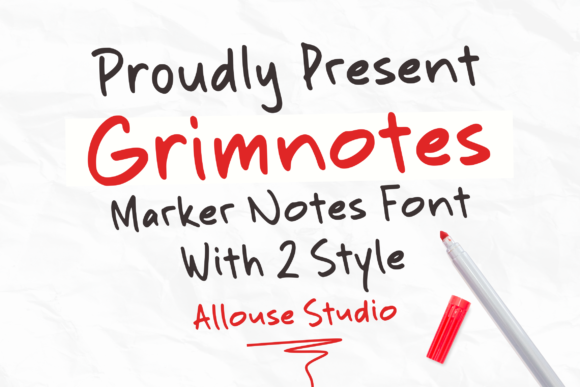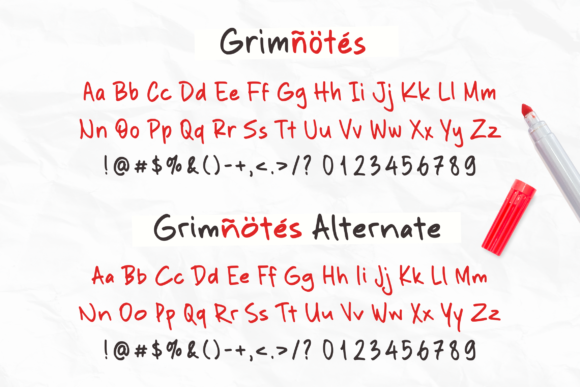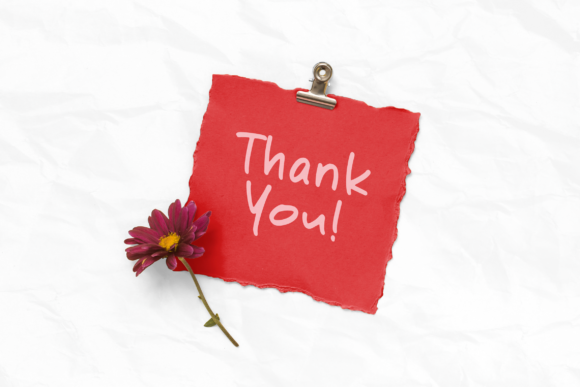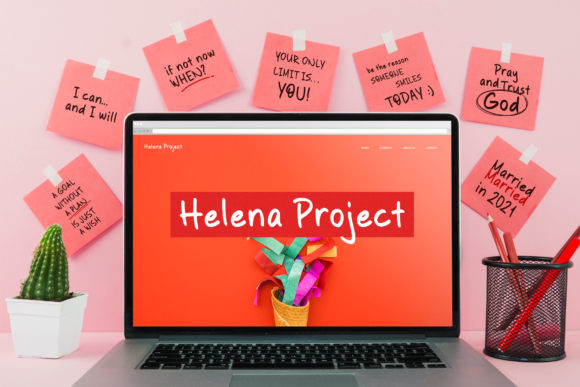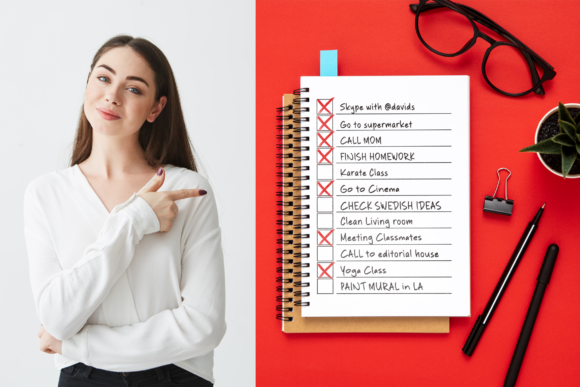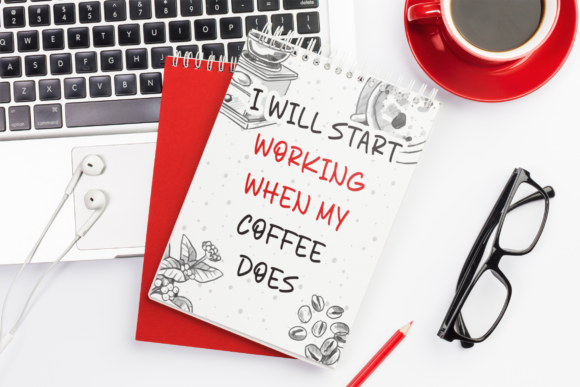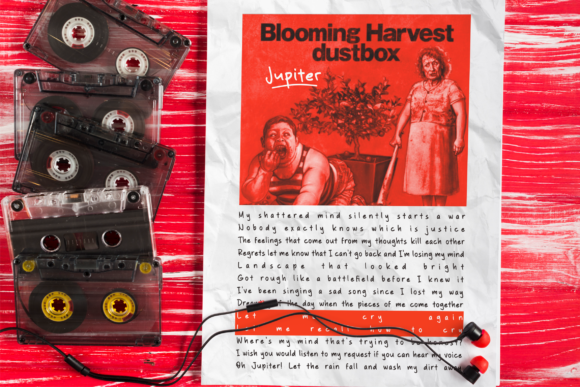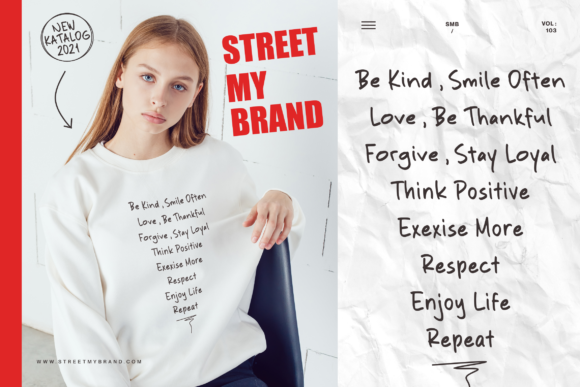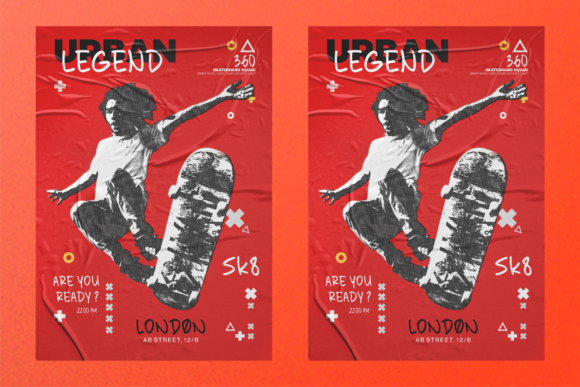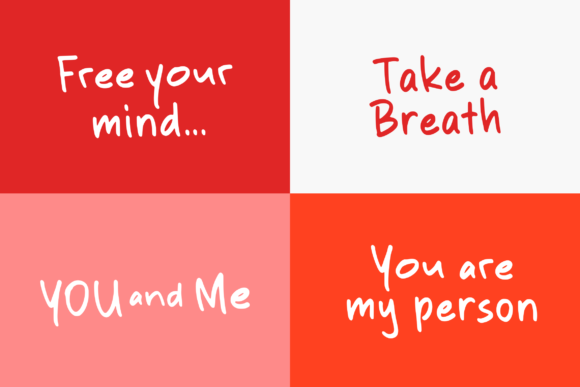
Grimnotes Font
About Grimnotes Font
Grimnotes is a cool, down to earth and readable handwritten font. Whether you use it for cartoon related designs, children games or just any creation that requires a lovely touch, this font will be an amazing choice.